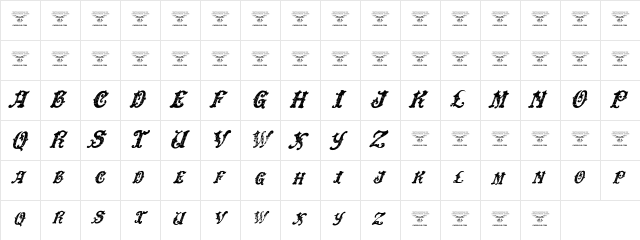
DinglE HuckleberrY Italic Free Font
DinglE HuckleberrY Italic
Foundry: Font Monger
Designer: Type 512
DinglE HuckleberrY Family
Design Context for DinglE HuckleberrY
DinglE HuckleberrY is a composed and adaptable typeface that performs quietly and consistently across a wide range of design contexts. The slanted form adds forward momentum and visual energy.